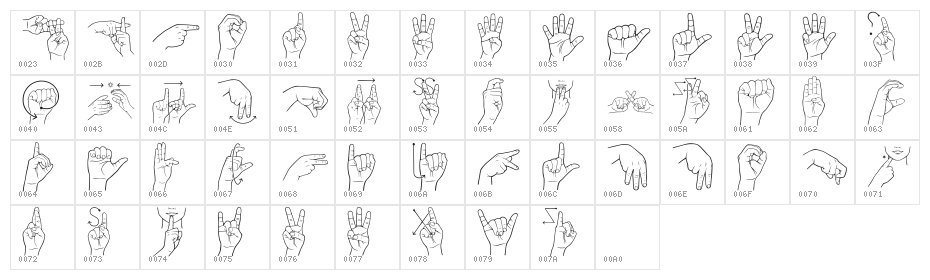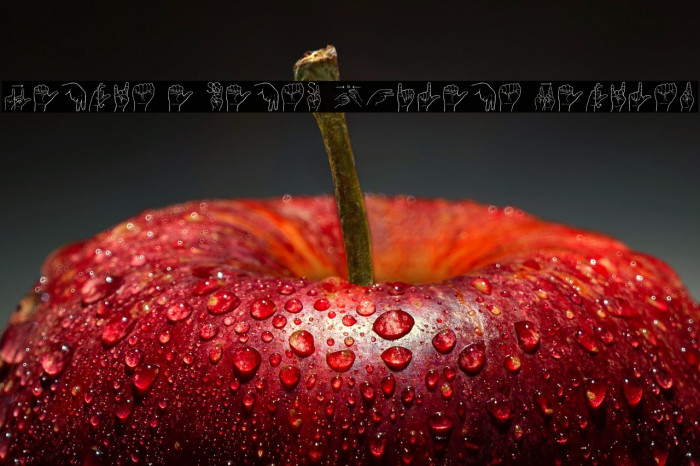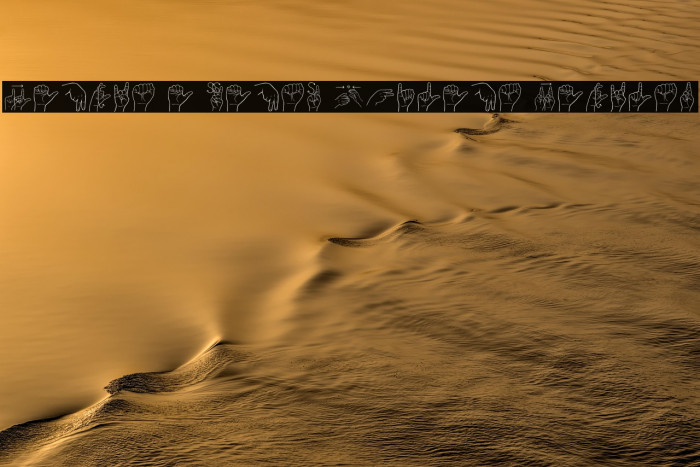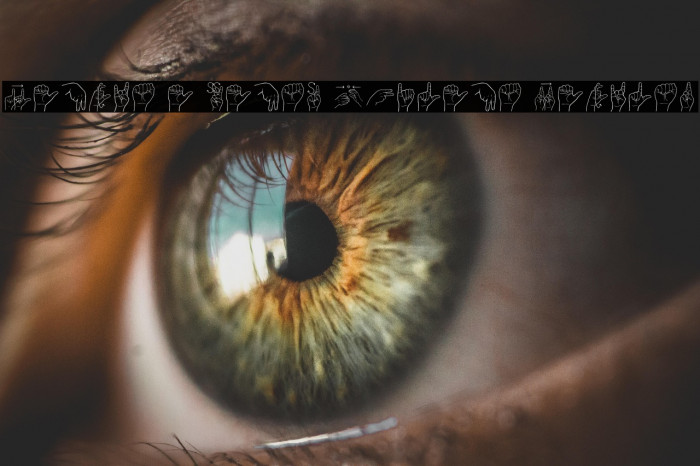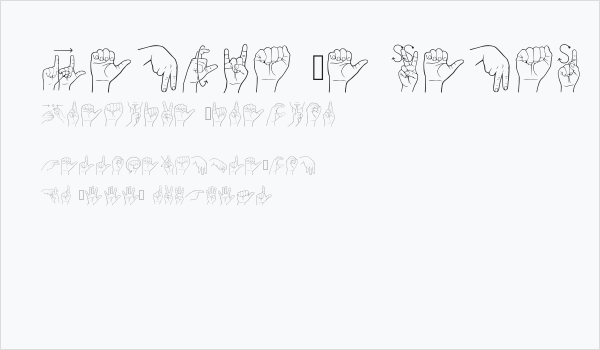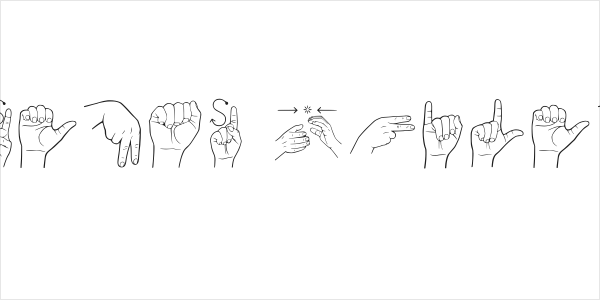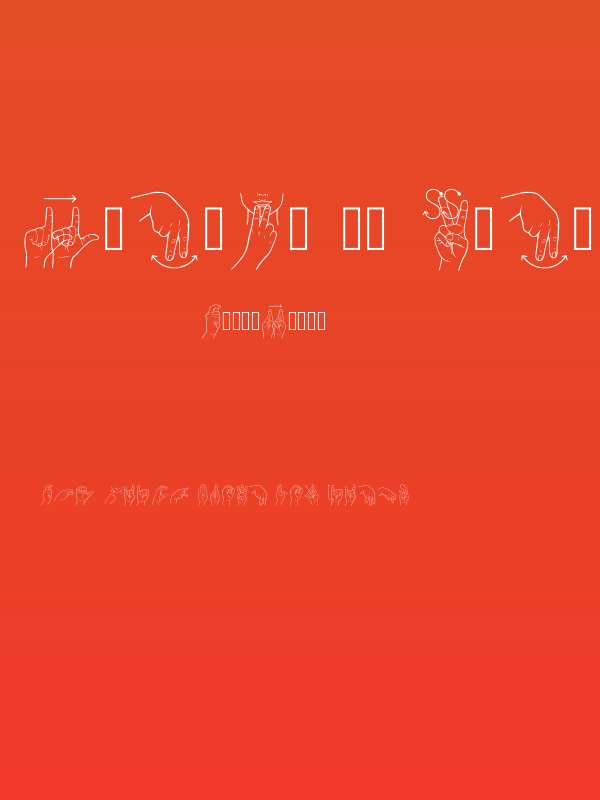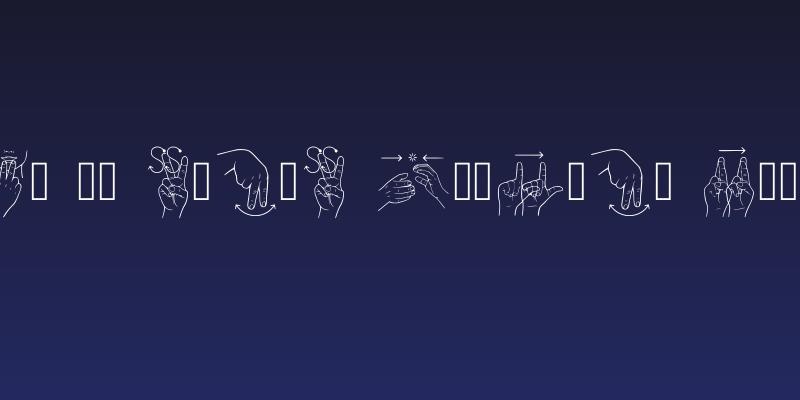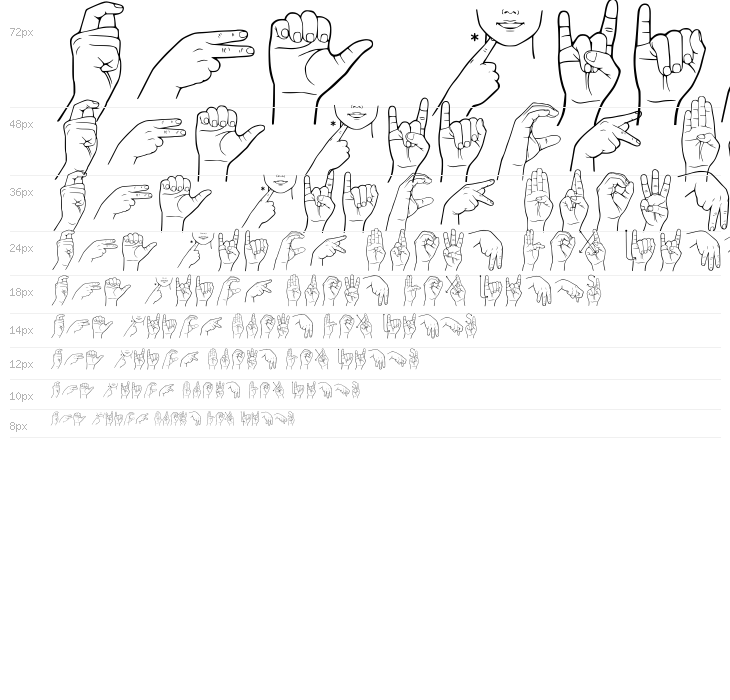
Lengua De Senas Chilena Regular Font
Lengua De Senas Chilena Regular Description
A set of hand-drawn illustrations depicting the manual alphabet and symbols used in Chilean Sign Language, featuring clear, simple line art with minimal shading and consistent stroke thickness for each hand gesture.
| Overall Style | Instructional, Educational, Minimalist |
| Use Case | Educational materials, visual aids, signage |
| Proposed Projects | Educational posters, language learning materials, accessibility guides, instructional signage. |